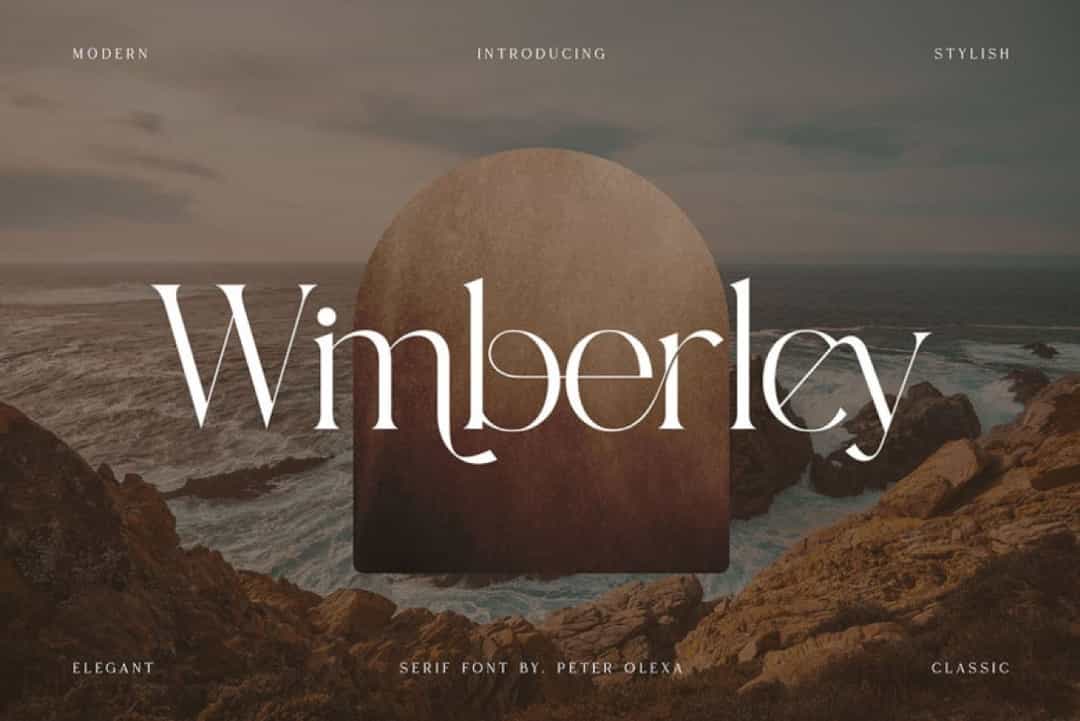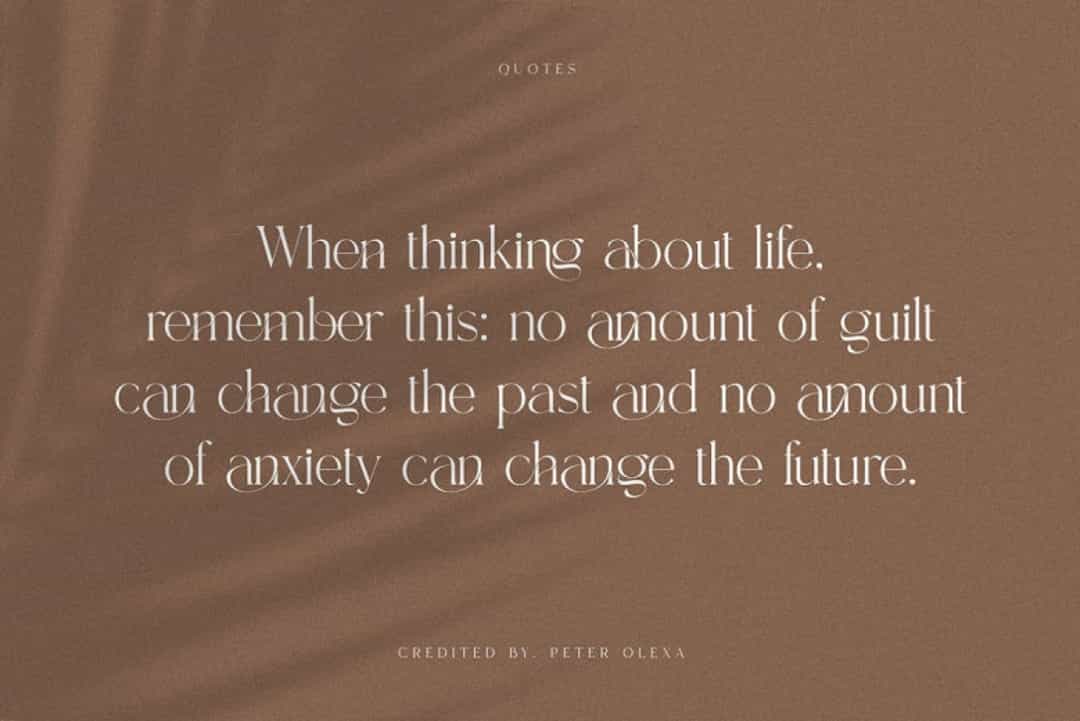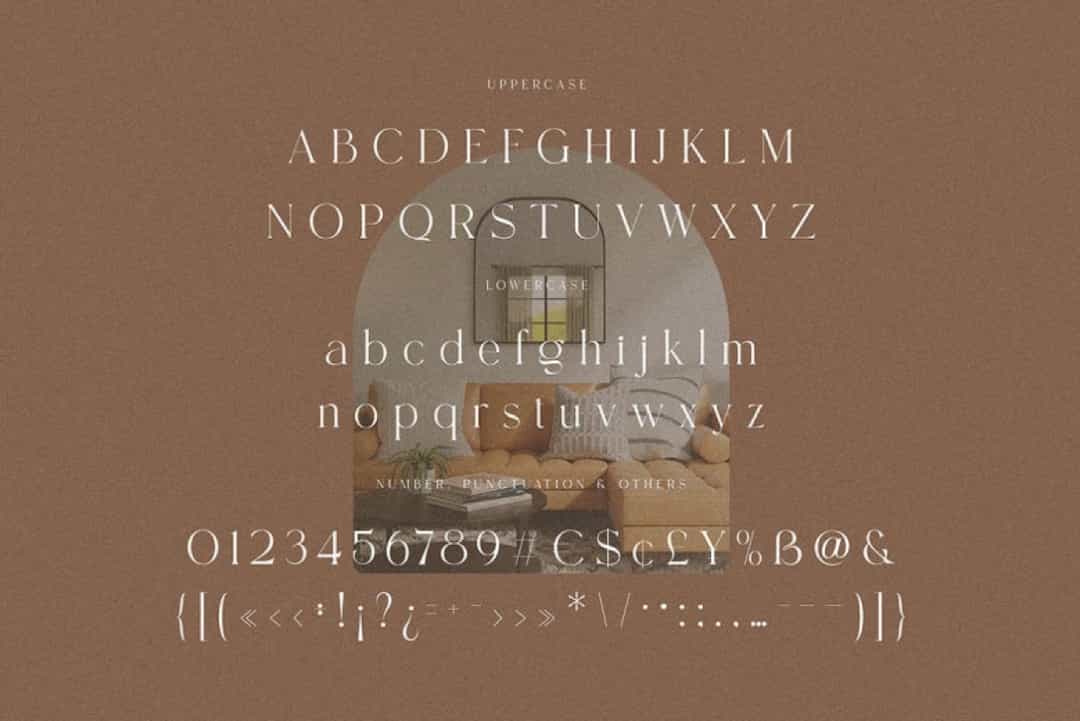
Wimberley is an elegant and modern Serif Typeface to add some modernity and flair to any project, be it branding or otherwise. With an abundance of ligatures and alternates available to create distinctive logo designs or headers on websites!